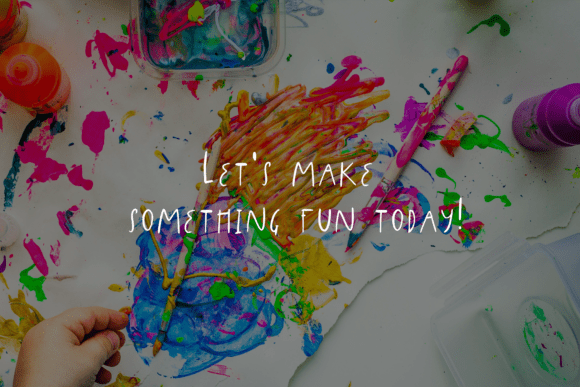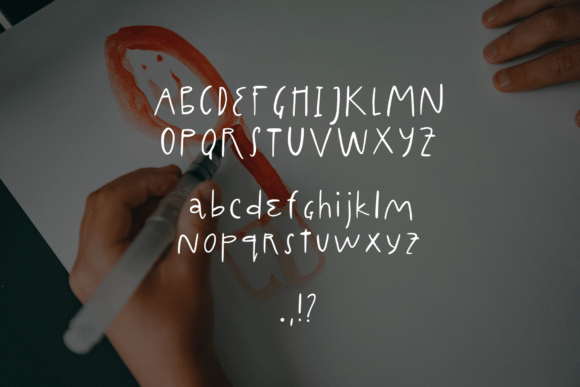
Introducing Funny Marker Font: Add a Dash of Playfulness to Your Designs
Are you tired of using the same old fonts in your designs? Do you want to add a touch of whimsy and playfulness to your projects? Look no further than Funny Marker, a cheerful, handwritten display font that’s sure to bring a smile to your face. In this article, we’ll take a closer look at Funny Marker, its features, and how you can use it to add warmth, charm, and a handmade feel to your designs.
What is Funny Marker Font?
Funny Marker is a delightful, handwritten display font that captures the lighthearted spirit of marker-drawn lettering. With its bouncy, uneven strokes and playful energy, this font is perfect for adding a touch of fun and creativity to any design. Whether you’re working on a children’s book, crafting colorful classroom materials, or designing greeting cards, Funny Marker is the perfect choice.
Key Features of Funny Marker Font
So, what makes Funny Marker so special? Here are some of its key features:
• Uppercase & lowercase letters: Funny Marker includes both uppercase and lowercase letters, making it easy to use in a variety of designs.
• Basic punctuation: The font also includes basic punctuation marks, such as periods, commas, and exclamation points.
• No multilingual support: While Funny Marker doesn’t offer multilingual support, it’s perfect for English-language designs and projects.
Perfect for Kids’ Projects and DIY Crafts
Funny Marker is a great choice for kids’ projects, DIY crafts, and other creative endeavors. Its playful, handwritten style feels friendly and approachable, making it perfect for:
• Kids’ books and educational materials: Add a touch of fun and playfulness to your children’s book or classroom materials with Funny Marker.
• Greeting cards and invitations: Use Funny Marker to create personalized greeting cards and invitations that are sure to delight.
• Posters and stickers: Funny Marker is perfect for creating eye-catching posters and stickers that will grab attention.
• Branding and DIY crafts: Add a touch of whimsy to your branding or DIY craft project with Funny Marker.
Why Choose Funny Marker Font?
So, why should you choose Funny Marker for your next design project? Here are just a few reasons:
• Unique and playful style: Funny Marker has a one-of-a-kind, playful style that’s sure to stand out.
• Easy to read and use: Despite its playful style, Funny Marker is easy to read and use in a variety of designs.
• Adds a handmade feel: Funny Marker adds a touch of warmth and a handmade feel to any design.
In conclusion, Funny Marker is a delightful, handwritten display font that’s perfect for adding a touch of playfulness and whimsy to your designs. With its bouncy, uneven strokes and playful energy, this font is sure to bring a smile to your face. Whether you’re working on a children’s book, crafting colorful classroom materials, or designing greeting cards, Funny Marker is the perfect choice. So why wait? Let your designs smile with Funny Marker!